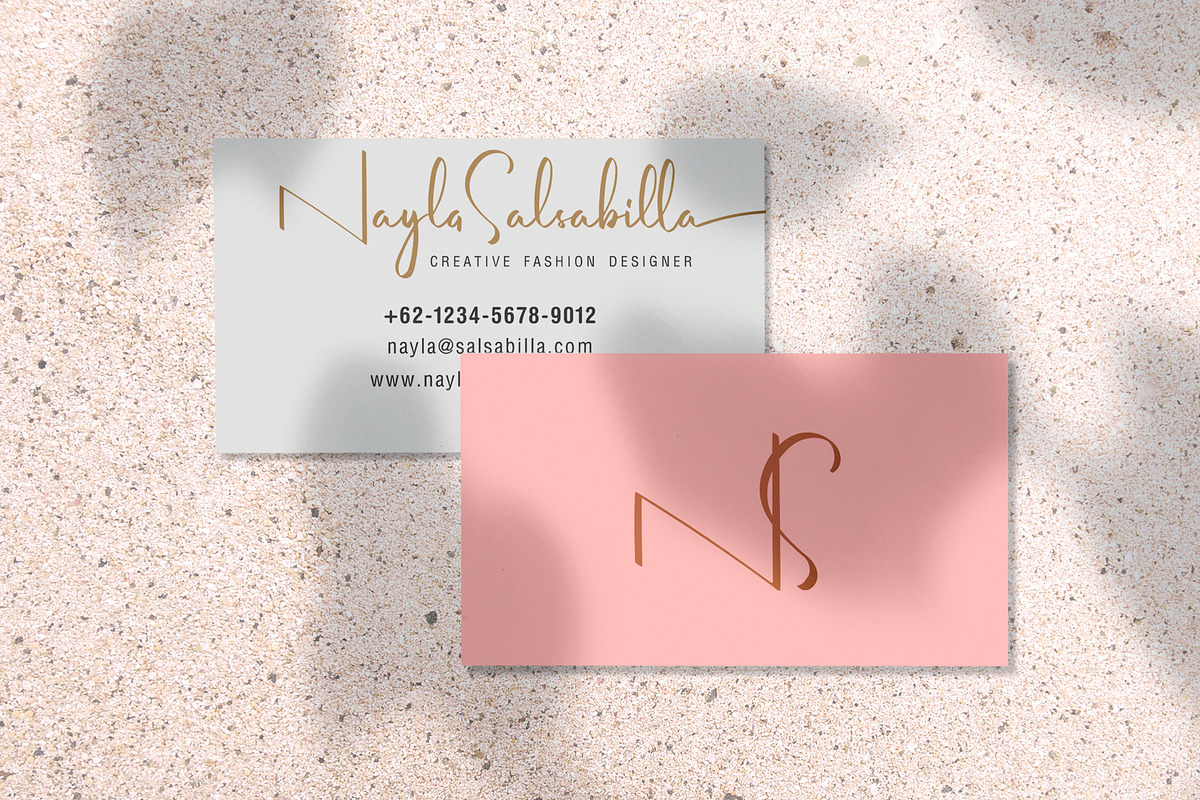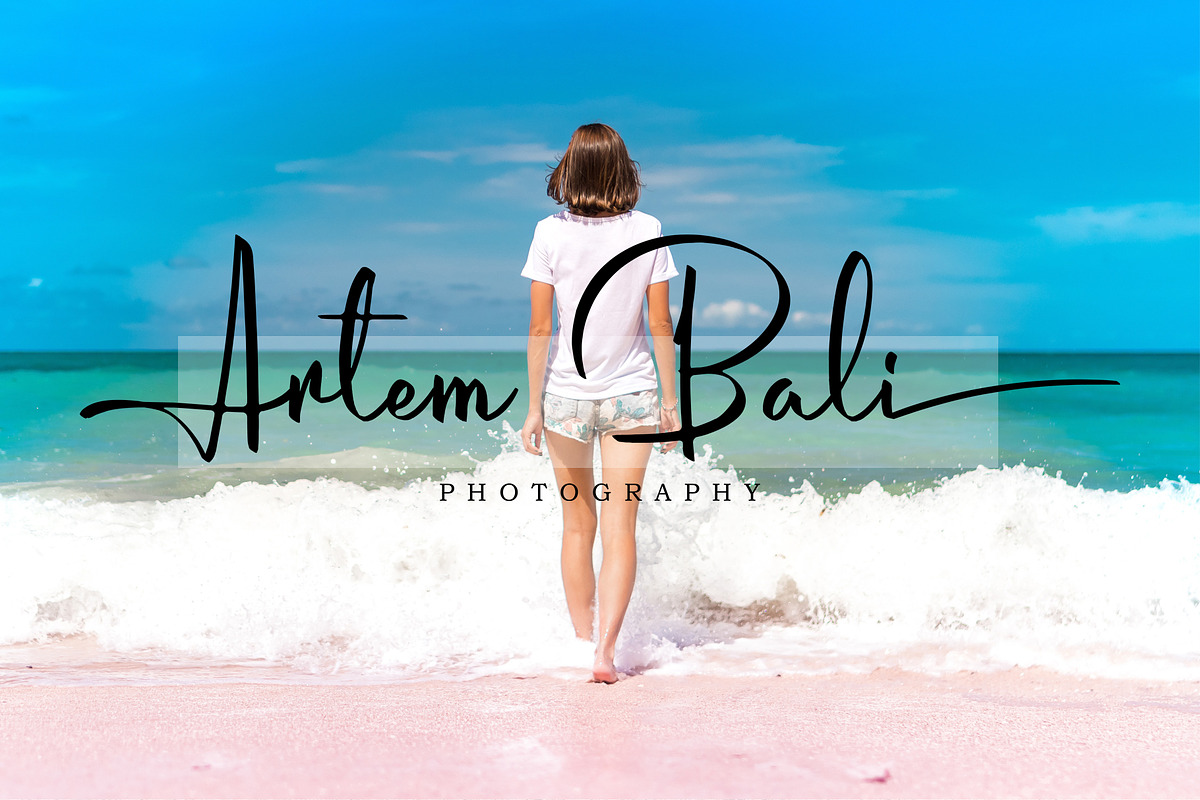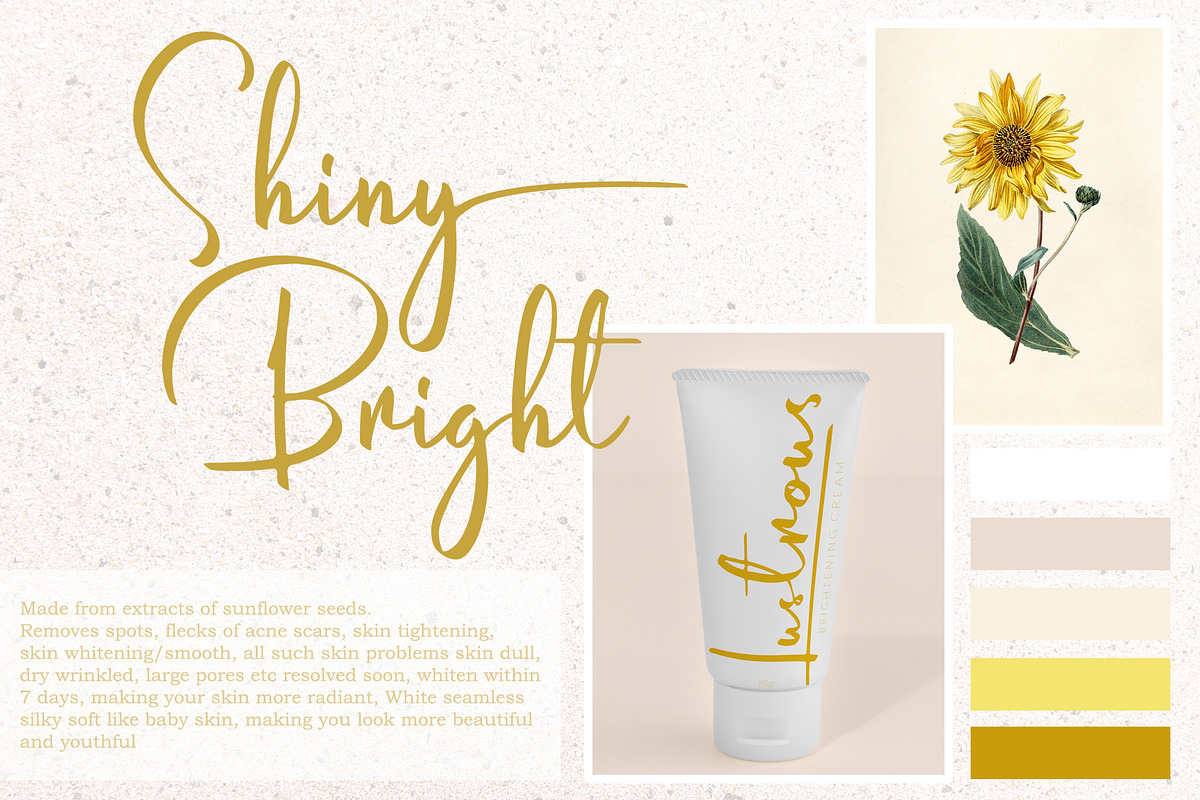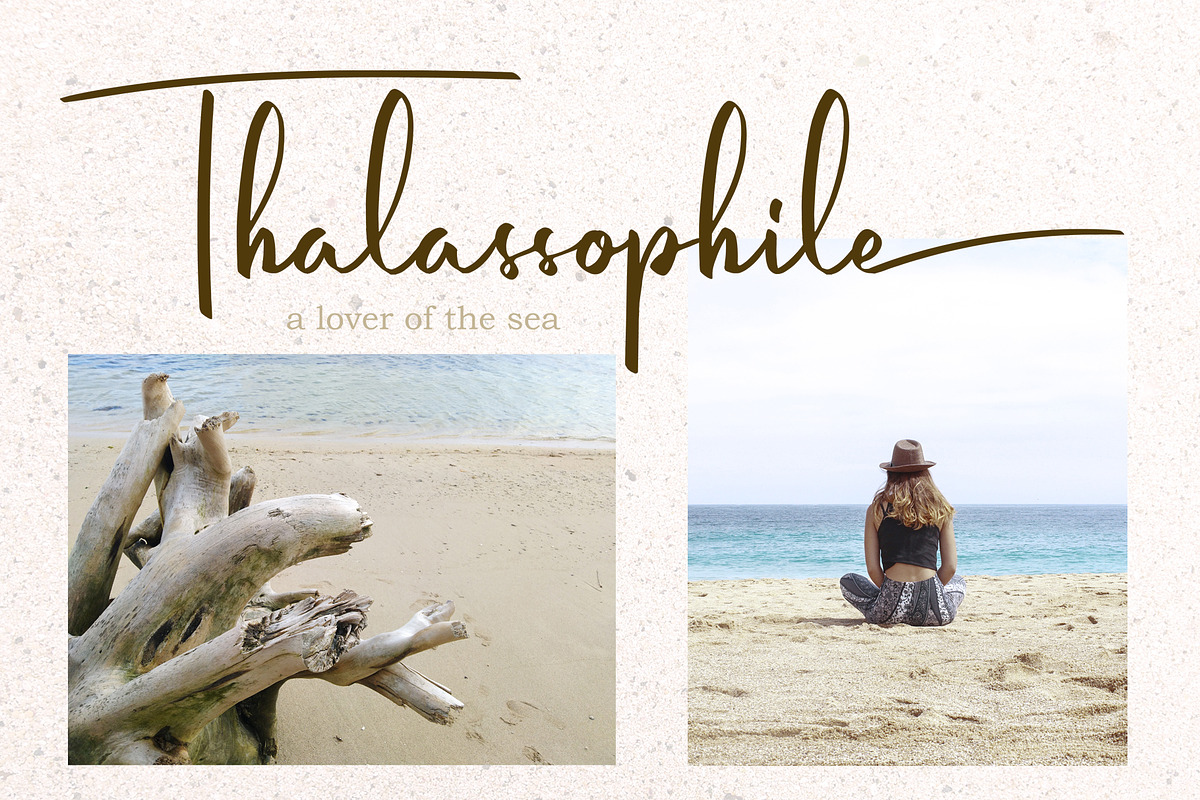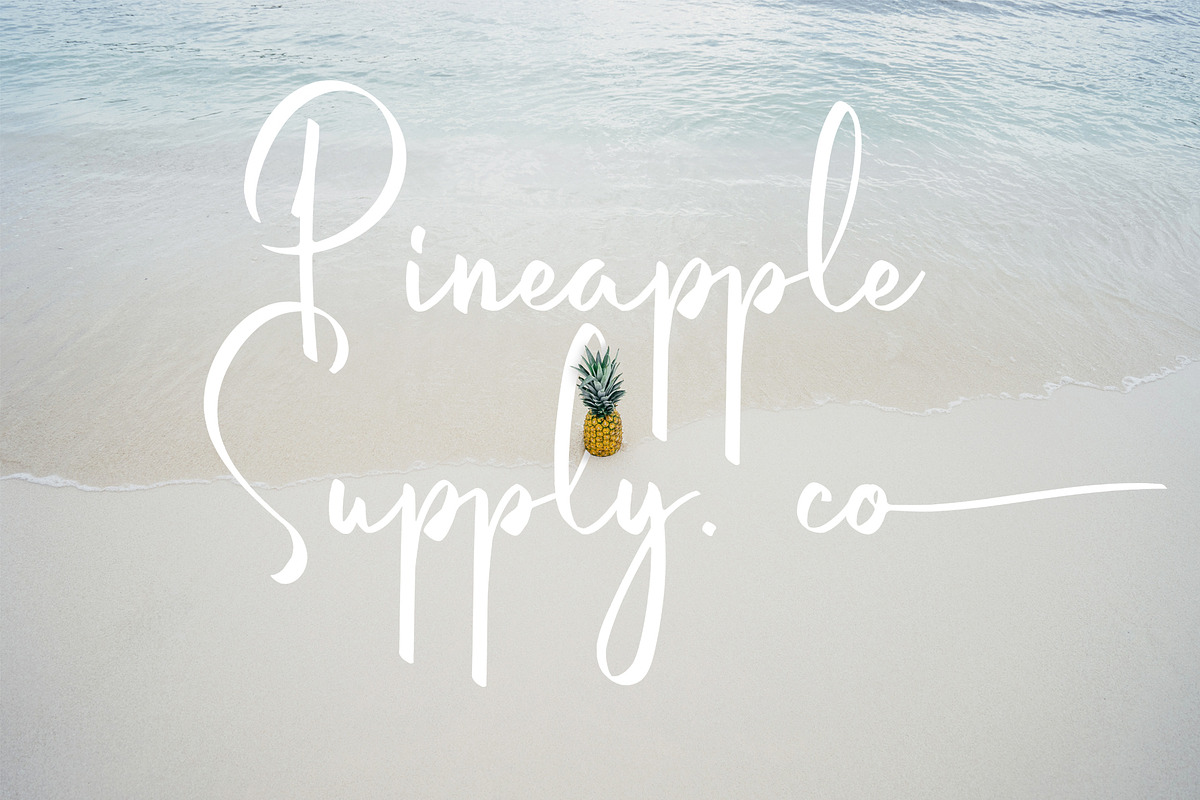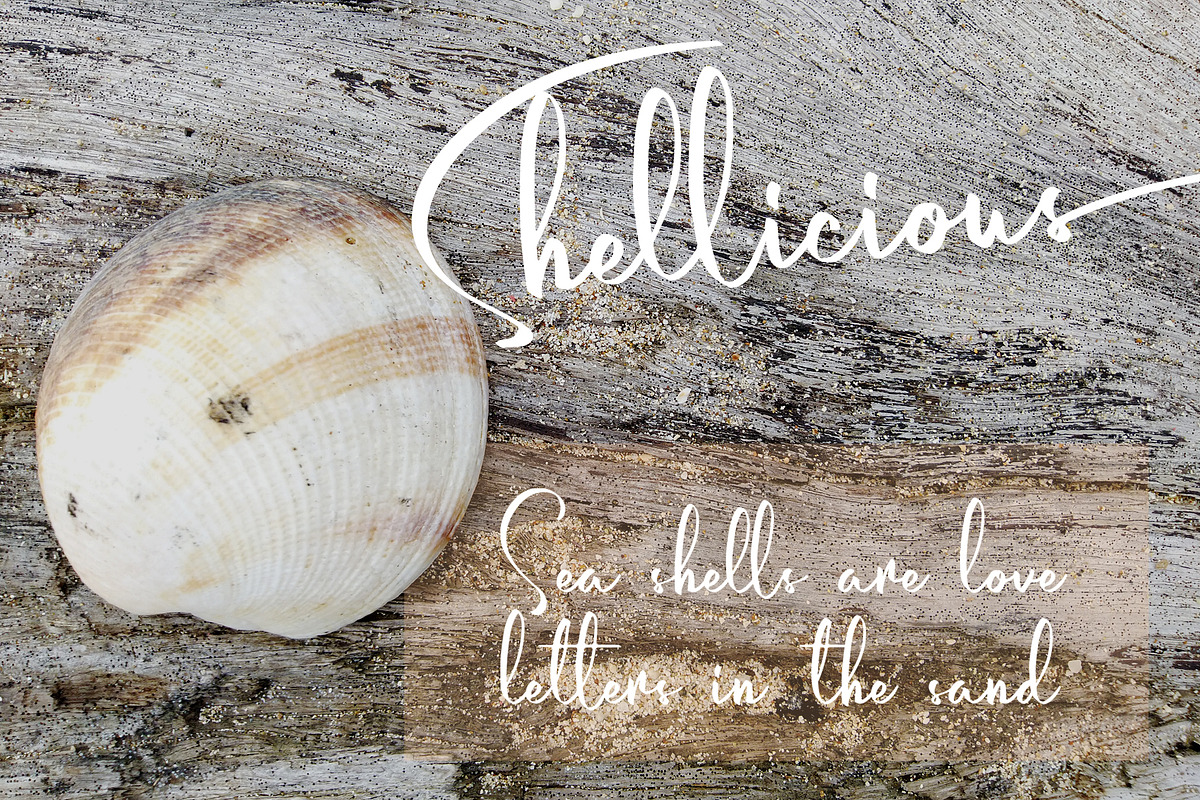
Humaira - Signature Fonts
Intoducing Humaira. is the exquisite signature font, done carefully each letter. by Humaira you will feel different sensations because it serves typical style Humaira wrote manually by hand.
Humaira comes with two kinds of characters that you can mix and match to make it look more natural, of course the ending provides Humaira could make a signature look very natural.
Humaira fits perfectly in a variety of design needs, such as : signature logo, photography, packaging products, branding, print design, invitation, watermarks, magazines, even posts on social media, and more.